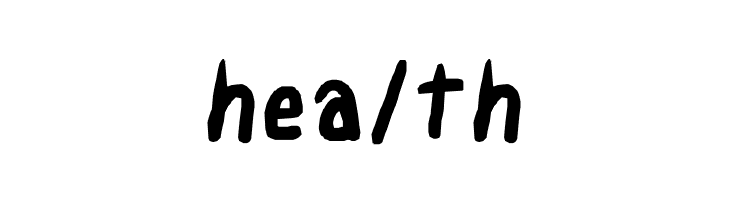
( Breah's fonts! )
A playful, casual handwritten font with a bold, organic style.
( Ruji C. - rujic.net )
A casual, hand-drawn font with a playful and informal style.
( SprayOnDog - oh-sheesh-yall-twas-a-dream.tumblr.com/ )
A playful, handwritten font with an informal and friendly style.
A playful, handwritten font with a casual and organic style.
A playful, elegant script font with a handwritten feel and whimsical curls.